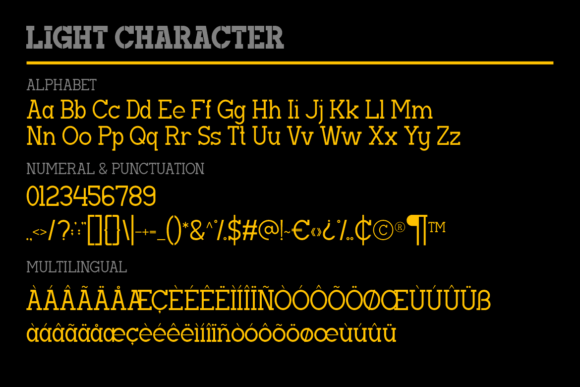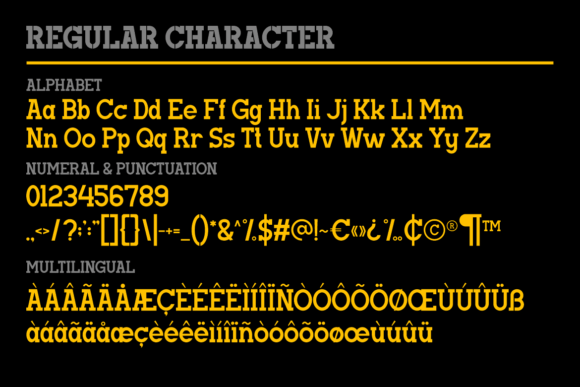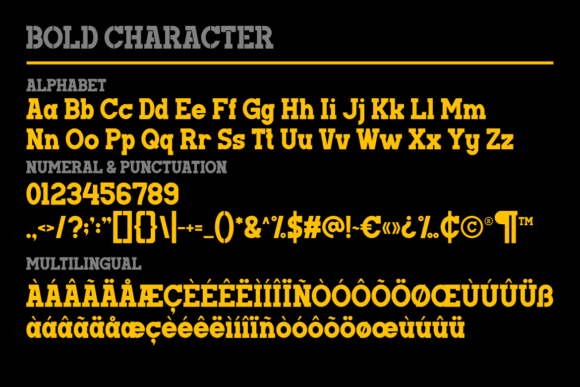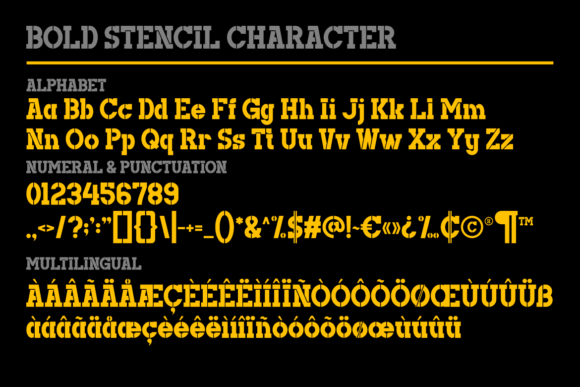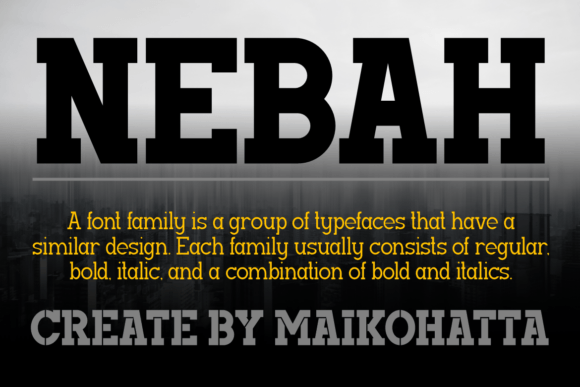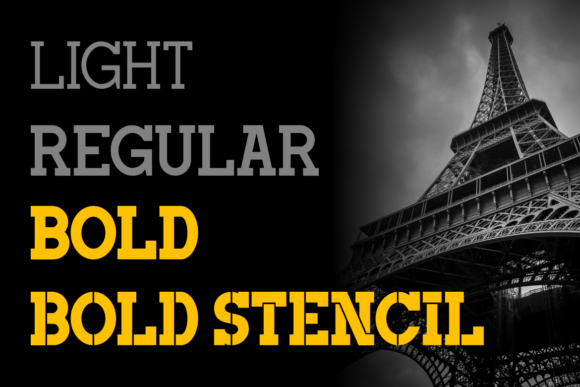
Introduction to Nebah Font
Introducing our new product **Nebah** Modern Family Typeface This font has a series of small or decorative projections called serifs at the ends of its characters.
Serifs provide a more formal, classic, and easy-to-read appearance to printed text Serif fonts are often used in formal documents, books, and print publications because of their good legibility in small text sizes.
Key Features of Nebah Font